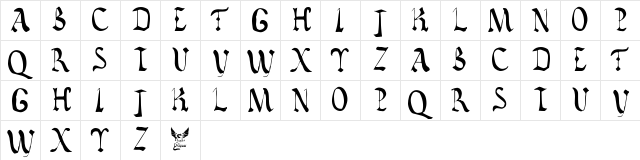
Vatican Rough Letters, 8th c. Regular
Design Context for Vatican Rough Letters, 8th c. Typeface
Vatican Rough Letters, 8th c. embraces imperfection — its rough, textured character adds raw authenticity to designs that want to feel lived-in and unconventional.
Suited to punk-influenced zines, underground music branding, streetwear, and raw, anti-corporate design.
Pro Tip: Pair Vatican Rough Letters, 8th c. with intentionally raw or lo-fi design elements. Fighting against it with overly polished surroundings will undermine its personality.